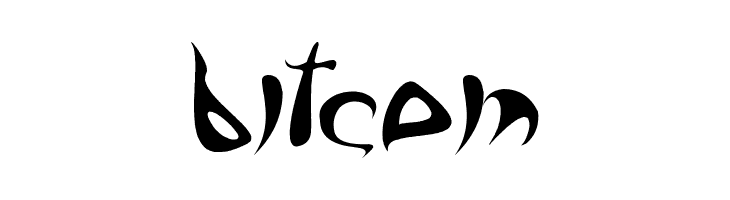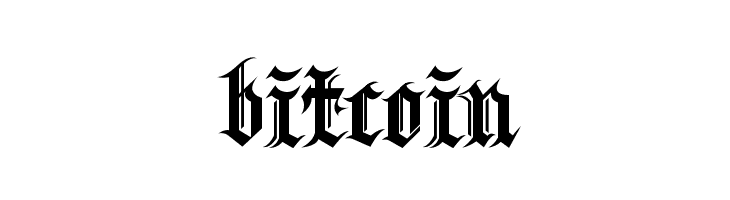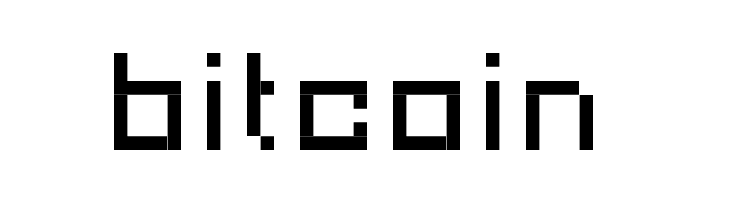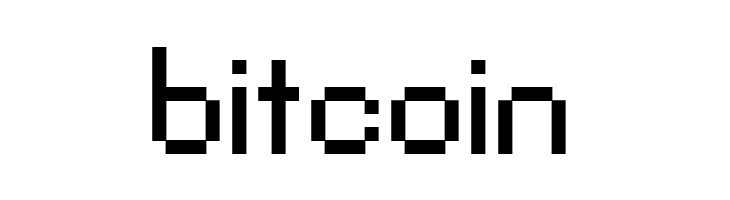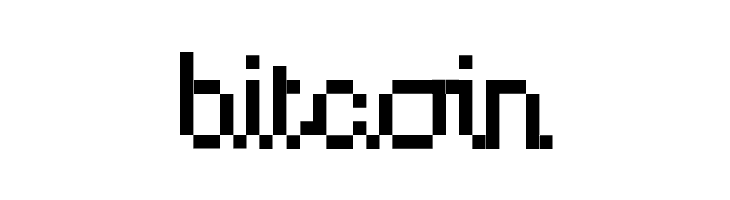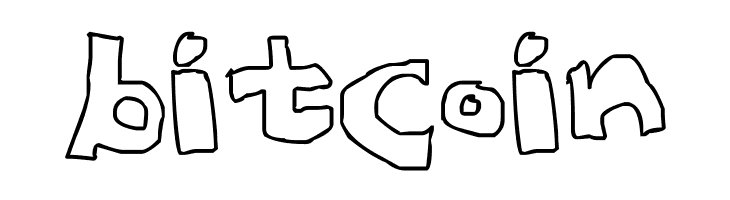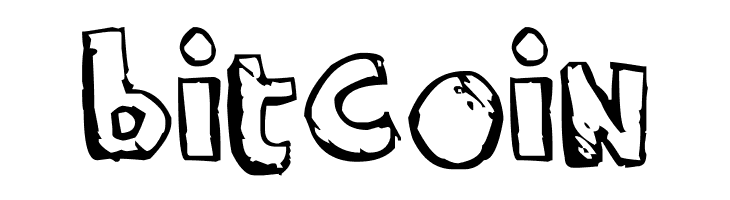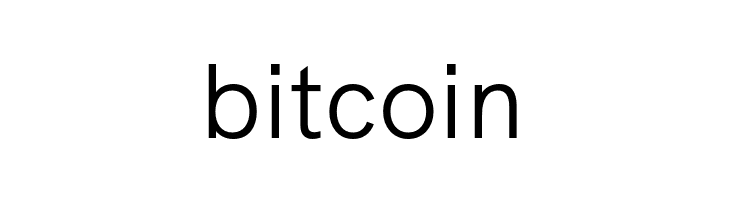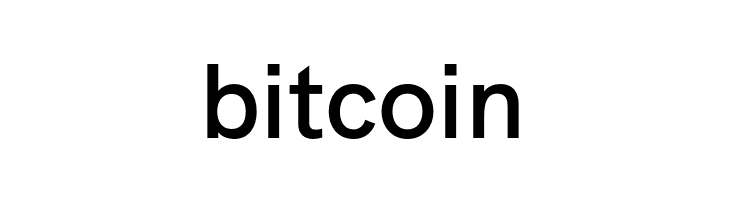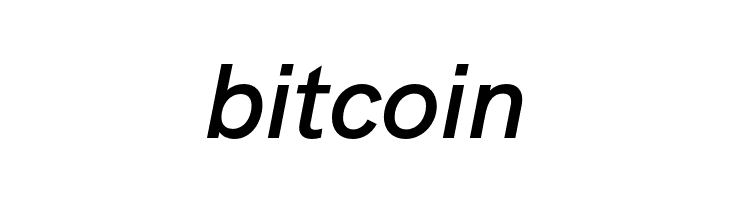
A modern, geometric sans-serif font with balanced proportions.
A clean, modern typeface with balanced proportions and uniform stroke width.
A modern, semi-bold italic sans-serif font with clean lines and dynamic style.
A bold, modern sans-serif font with a clean and structured design.
A playful, outlined font with hollow letterforms and rounded edges.
A bold, glitch-inspired font with a distressed, digital aesthetic.
A bold, hand-drawn font with a distressed, marker-scratch style.
A bold, geometric font with a futuristic and industrial design.
An angular, aggressive font with sharp, jagged edges and a dynamic appearance.
A bold, geometric font with a futuristic and edgy design.
A bold, medieval-inspired font with sharp, angular characters and a historical aesthetic.
A chaotic, distressed font with jagged, uneven strokes for a grunge aesthetic.
An ornate, medieval-inspired font with high contrast and decorative flourishes.
A playful, bold display font with a whimsical, hand-drawn style.
A whimsical, cartoon-like font with playful characters and decorative elements.
A decorative, Celtic-inspired font with intricate details and embellishments.
A decorative, gothic-style font with intricate patterns and high contrast.
An elegant, classic script font with flowing, connected characters.
A traditional Blackletter font with ornate, medieval-inspired design.
A casual, handwritten font with a playful and spontaneous style.
A bold, playful font with rounded, bubbly characters ideal for fun designs.
A collection of intricate damask-inspired ornamental designs for elegant decoration.
A bold, decorative Blackletter font with intricate medieval styling.